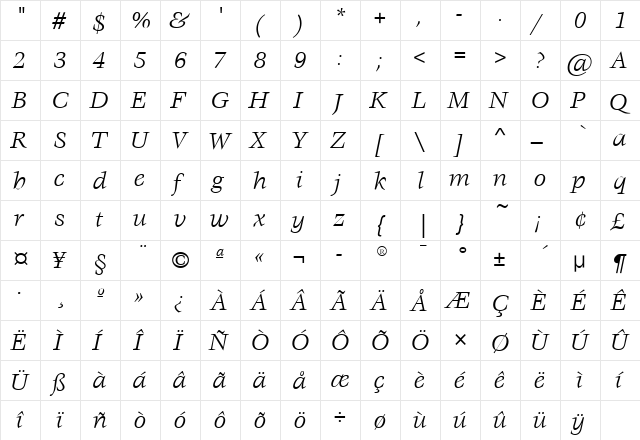
VeljovicITC Italic Font Preview
VeljovicITC Italic
Design Context for VeljovicITC Typeface
VeljovicITC is a composed and adaptable typeface that performs quietly and consistently across a wide range of design contexts. The slanted form adds forward momentum and visual energy.
Pro Tip: Use VeljovicITC for emphasis, pull quotes, and subheadings where its slanted energy can add rhythm to the layout.